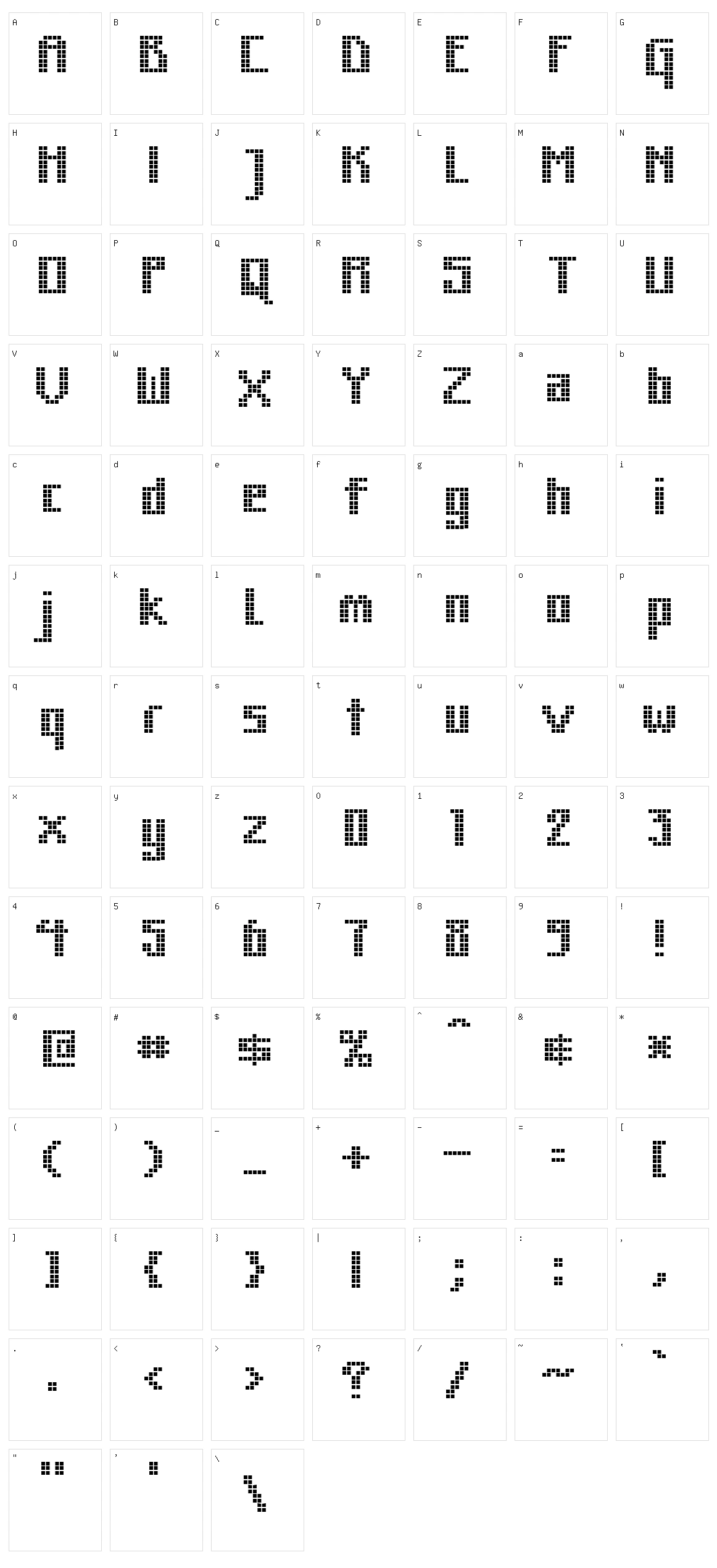
MK Zodnig Square
Designed by: Frank Flachs
Category: LCD & Futuristic
if you use this font make sure you use it BIG. sizes smaller than
28 usually don't work the way they're supposed to. italic and bold
versions are under construction at the moment and should be ready
for release by may 2000.
mk zodnig round might be on its way, too. who knows?